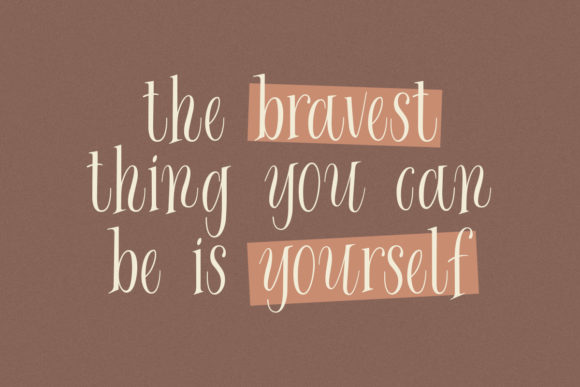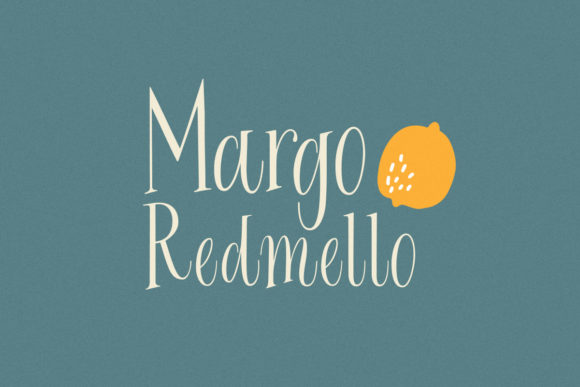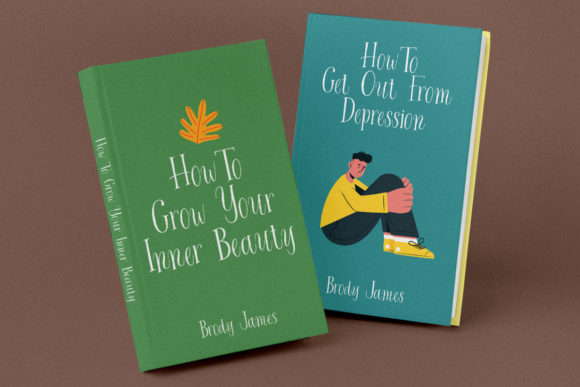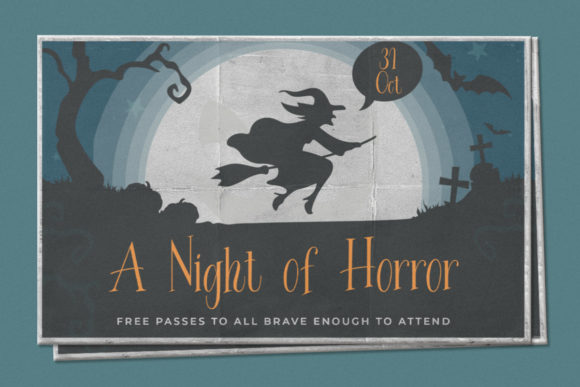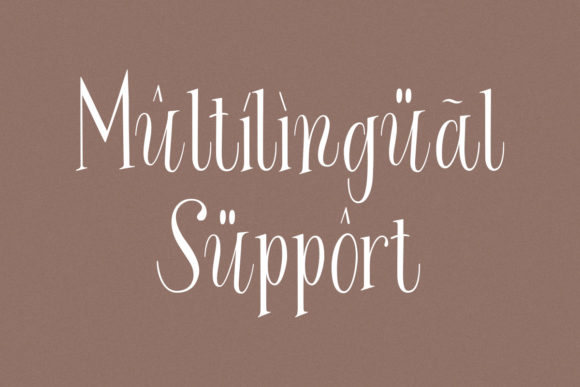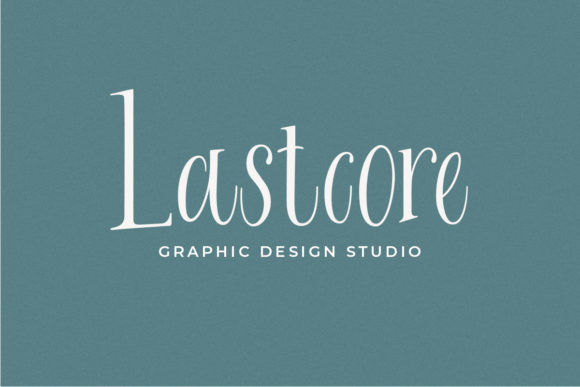
Unleash Your Creativity with Evening River Font
There’s nothing quite like the feeling of sitting at your desk, surrounded by scattered papers, half-finished projects, and a cup of steaming coffee. The perfect moment to let your imagination run wild and bring your creative ideas to life. And what better way to express yourself than with a font that’s as unique as you are?
Meet Evening River Font, a fun and quirky script font designed to make your branding, social media, and DIY projects shine. With its clean and elegant lines, this font is the perfect fit for any creative project. Whether you’re a seasoned designer or a crafty DIY enthusiast, Evening River Font is a valuable addition to your toolkit.
Evening River Font Key Features
- Font Family: Evening River Font is a unique, modern script font designed for various typography applications.
- Character Set: The font includes a wide range of characters, including uppercase and lowercase letters, numerals, and punctuation marks.
- Unique Characteristics: Evening River Font features a unique, flowing script design with subtle connections between letters, making it ideal for creative and elegant typography.
Evening River Font Review
Evening River Font is a beautiful, elegant script font designed to evoke a sense of serenity and sophistication. I was immediately drawn to its ✨ flowing lines and organic feel, making it perfect for any design project that requires a touch of luxury.
Here are some of the things that work well in this font:
- ✨ Unique and flowing lines that create a sense of movement and fluidity.
- ✨ Elegant and sophisticated feel that’s perfect for high-end branding and design projects.
- ✨ Good for use in titles, headings, and other display text where a sense of drama is required.
- ⚠️ Limited character set, which may require additional fonts to be paired for larger blocks of text.
- ⚠️ Not suitable for use in body text or paragraphs where a more readable font is required.
Overall, Evening River Font is a beautiful and elegant script font that’s perfect for designers looking to add a touch of sophistication and luxury to their projects. While it may have some limitations, its unique feel and flowing lines make it a great choice for titles, headings, and other display text.
For the best results, use the Evening River font in combination with other elegant and minimalist design elements. Avoid using it in bold or all-caps styles, as this can detract from its natural beauty.
The Evening River font is particularly well-suited for use in wedding invitations, luxury branding, and high-end packaging designs. Its elegant and refined style makes it an excellent choice for any project where sophistication and style are key.